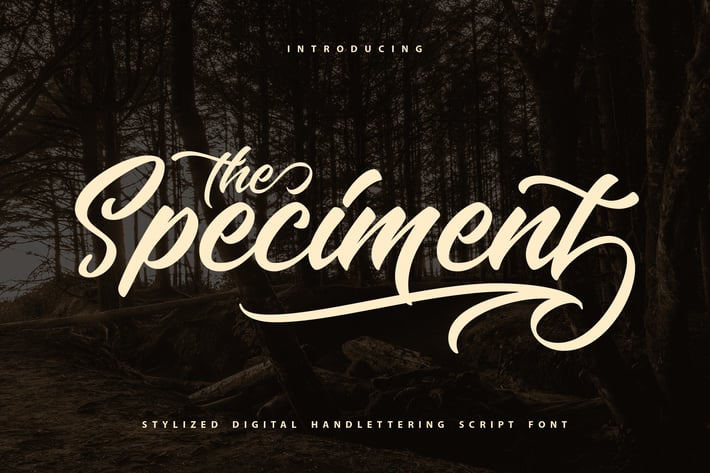
The Speciment – Handlettering Script Font
The Speciment is a Handlettering typeface, perfectly suitable for creating quotes, music, lifestyle design such as logos, titles, and magazines, and more.